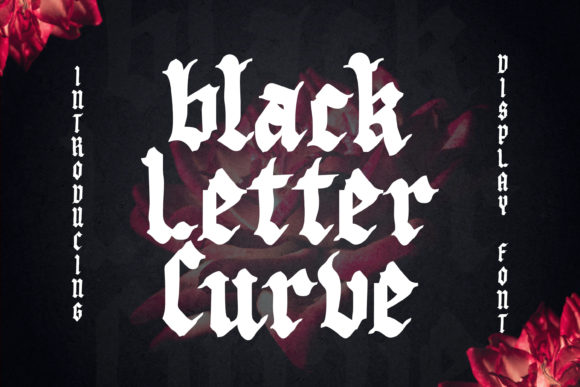
Behold, the magnificent Black Letter Curve Font, a crown jewel of the blackletter font family. This font exudes an aura of regality and confidence, making it the perfect choice for designers seeking to make a lasting impression.
Crafted with meticulous attention to detail by the renowned ovoz.graphics, the Black Letter Curve Font boasts a captivating design that commands attention. Its bold, sweeping lines evoke a sense of power and elegance, while intricate details add a touch of sophistication.
Unleash your creativity with the Black Letter Curve Font and let your imagination soar. Its versatility knows no bounds, making it ideal for a wide range of projects. Create eye-catching posters that demand attention, design logos that exude authority, or elevate your branding with a touch of timeless charm.
Step into the realm of royalty and make a statement with the Black Letter Curve Font. Its captivating design will leave a lasting impression on your audience, propelling your creative projects to new heights.